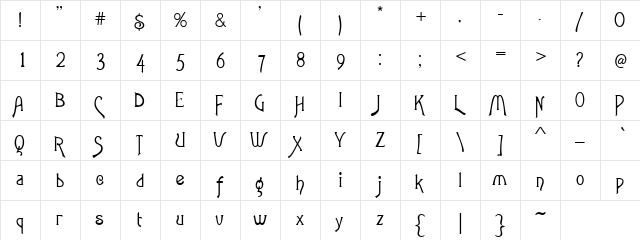
Black Magic Regular
Design Context for Black Magic Typeface
Black Magic is a composed and adaptable typeface that performs quietly and consistently across a wide range of design contexts.
Pro Tip: Use Black Magic in both headline and body roles to test its range before committing to a single application.